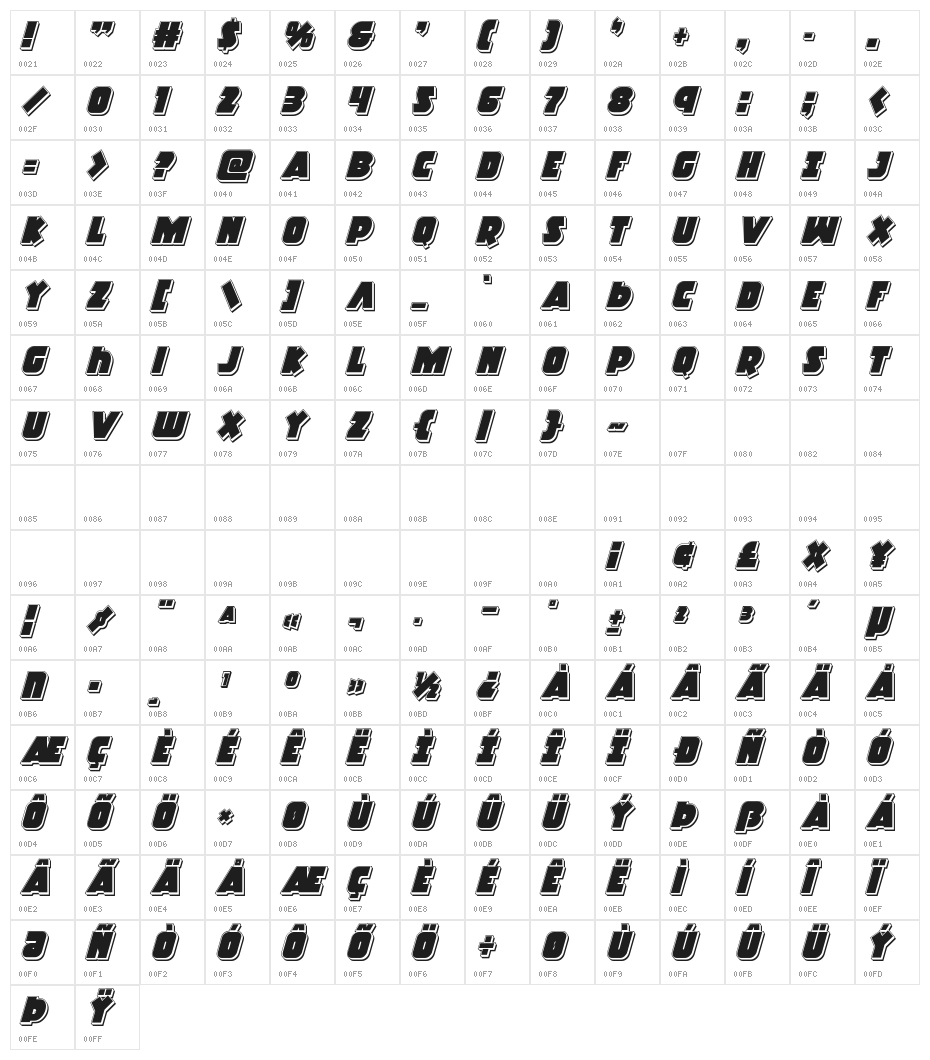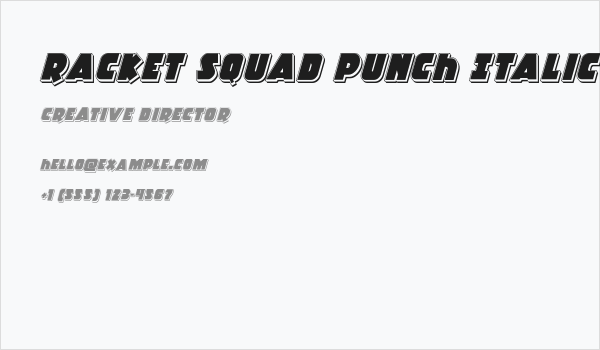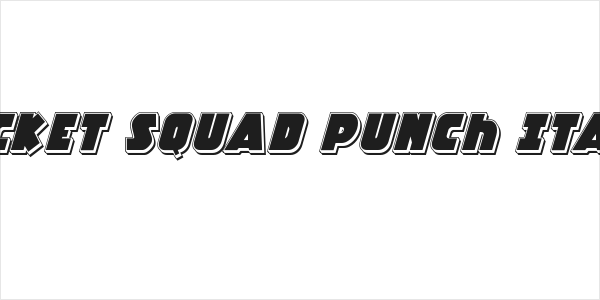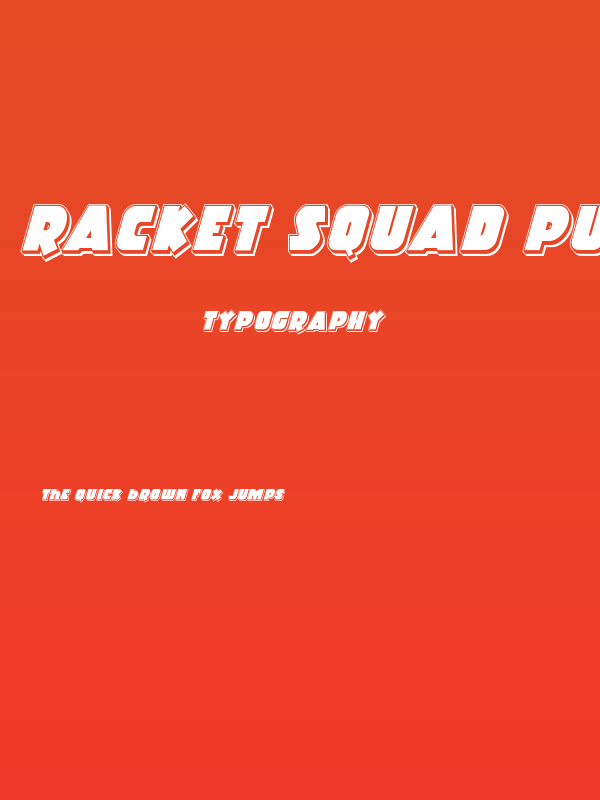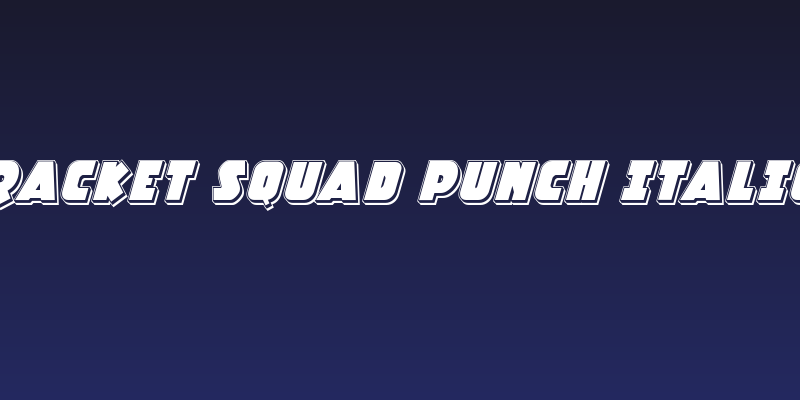
Racket Squad Punch Italic Font
Racket Squad Punch Italic Description
This font features a bold, dynamic style with a strong 3D effect, giving each character a sense of depth and movement. The letters are italicized, adding a forward-leaning energy that suggests speed and action. The thick, blocky design is accentuated by a shadow effect, enhancing the boldness and making it stand out. The uppercase and lowercase letters maintain a consistent style, while the numerals and special characters follow the same design principles, ensuring uniformity across all elements.
| Proposed Projects | Ideal for sports branding, action-themed posters, video game titles, and dynamic advertising campaigns. |